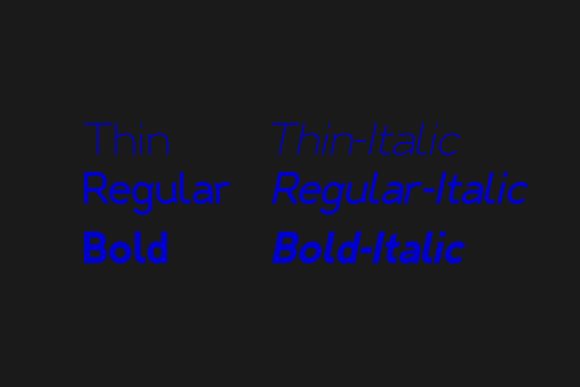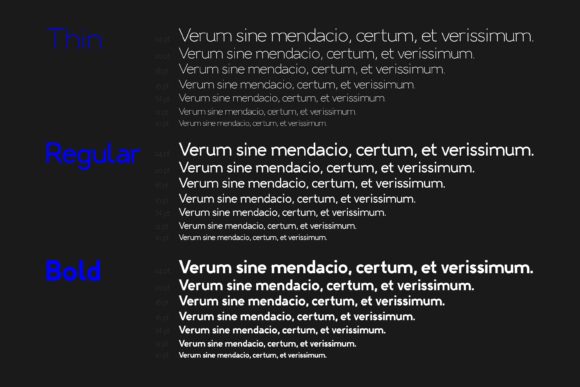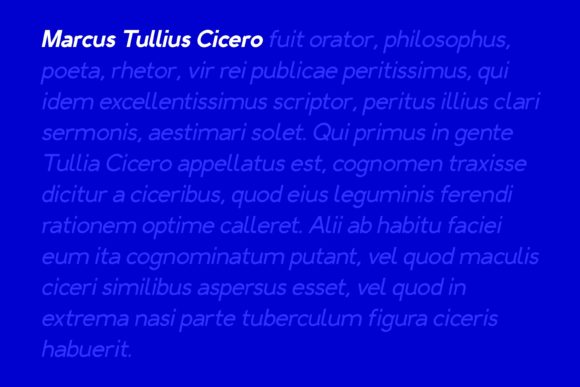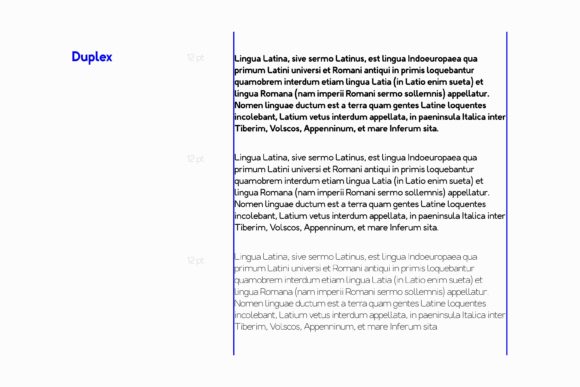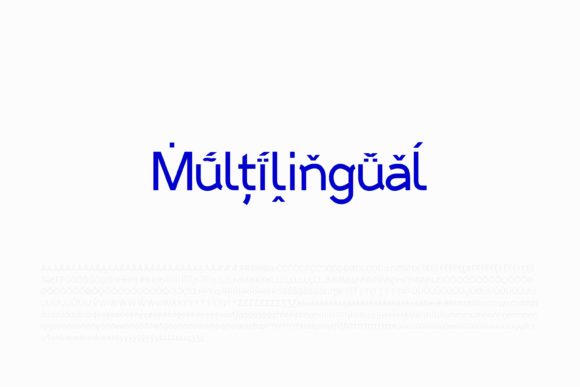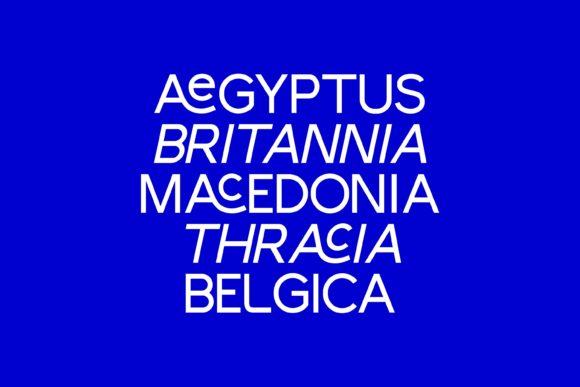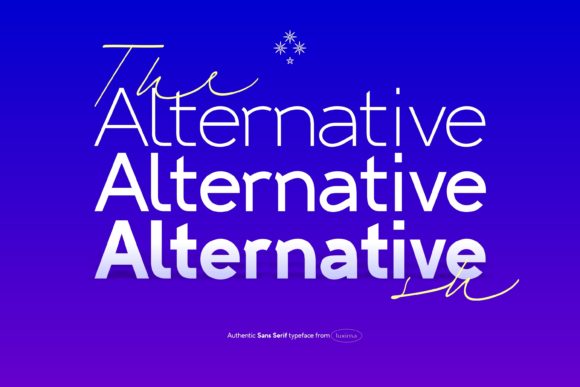
Discover the Ultimate Design Companion: Alternative SH Font
In the realm of typography, a font can make or break a design project. For designers and crafters on the lookout for a modern, versatile, and attention-grabbing typeface, the Alternative SH Font is a game-changer. This cool, modern, and casual sans serif font is engineered to elevate your creative projects, offering a fresh and distinctive look that sets you apart.
What Makes Alternative SH Font Stand Out?
Alternative SH Font boasts a clean and minimalist design, characteristic of sans serif fonts, but with a unique twist that gives it a modern edge. Its sleek lines and rounded edges make it not only visually appealing but also highly legible across various applications. Whether you’re working on a logotype, headline font, or any creative project, this font ensures your message is delivered with style and clarity.
One of the key advantages of the Alternative SH Font is its incredible versatility. It’s suitable for a wide range of projects, including:
• Corporate Identity: Elevate your brand’s visual identity with a modern and approachable look.
• Brand Identity: Create a lasting impression with a distinctive typeface that speaks to your brand’s personality.
• Apparel Industry: Perfect for designing trendy and stylish clothing lines.
• Poster, Movie, Game, and Music: Add a contemporary touch to your promotional materials or creative projects.
• Magazine, Book, Comic, and Cartoon: Bring a fresh perspective to your publications with a font that’s both fun and readable.
• YouTube, Instagram, and Website: Enhance your digital presence with a modern font that captures attention.
Why Choose Alternative SH Font?
Choosing Alternative SH Font for your design projects comes with numerous benefits:
• Modern Aesthetic: Instantly update your designs with a contemporary look that appeals to younger audiences.
• High Legibility: Ensure your message is clear and easily readable across different mediums.
• Flexibility: Use it across various projects, from digital platforms to print materials.
• Unique Style: Stand out from the crowd with a font that offers a distinctive style without being overly ornate.
Tips for Using Alternative SH Font Effectively
To maximize the impact of Alternative SH Font, consider the following tips:
• Pair with Complementary Fonts: For added visual interest, pair Alternative SH Font with serif fonts or script fonts to create contrast.
• Adjust Font Weights: Experiment with different font weights to add hierarchy and emphasis to your text.
• Consider Color Schemes: Choose colors that complement the modern and casual vibe of the font.
Alternative SH Font is more than just a typeface; it’s a design companion that can elevate your projects to new heights. Its modern and casual aesthetic, combined with its versatility and legibility, make it an ideal choice for designers and crafters across various industries. Whether you’re looking to refresh your brand’s identity, create engaging content, or simply explore new design possibilities, Alternative SH Font is a valuable asset in your creative toolkit.
Embrace the power of typography with Alternative SH Font and discover a world of creative possibilities at your fingertips.